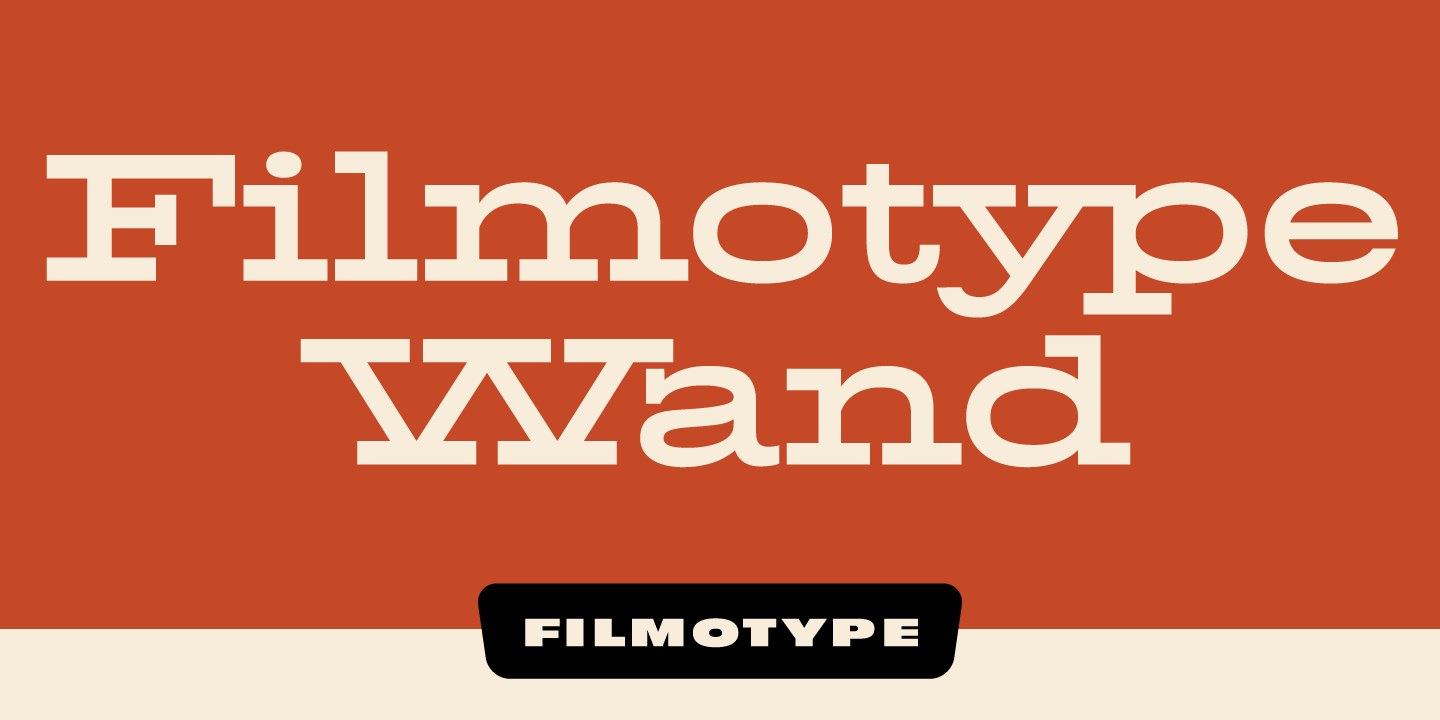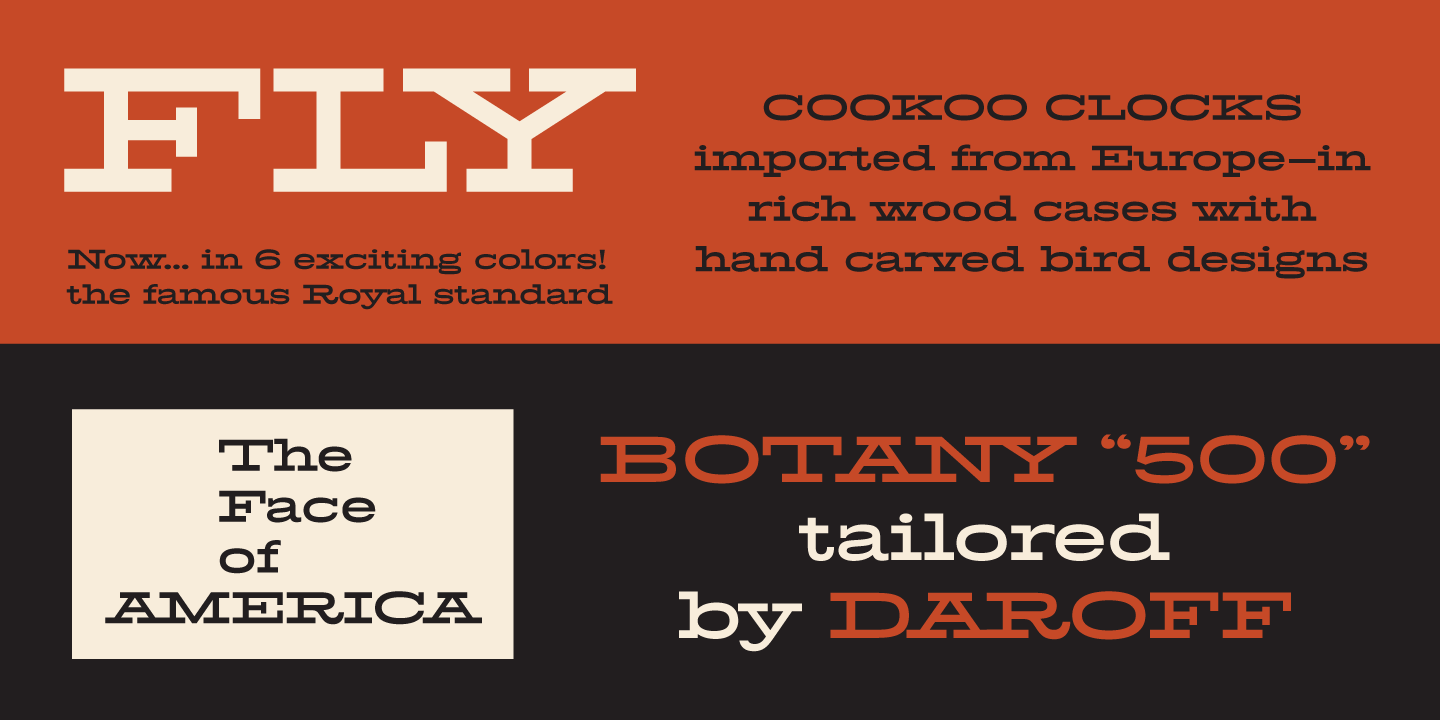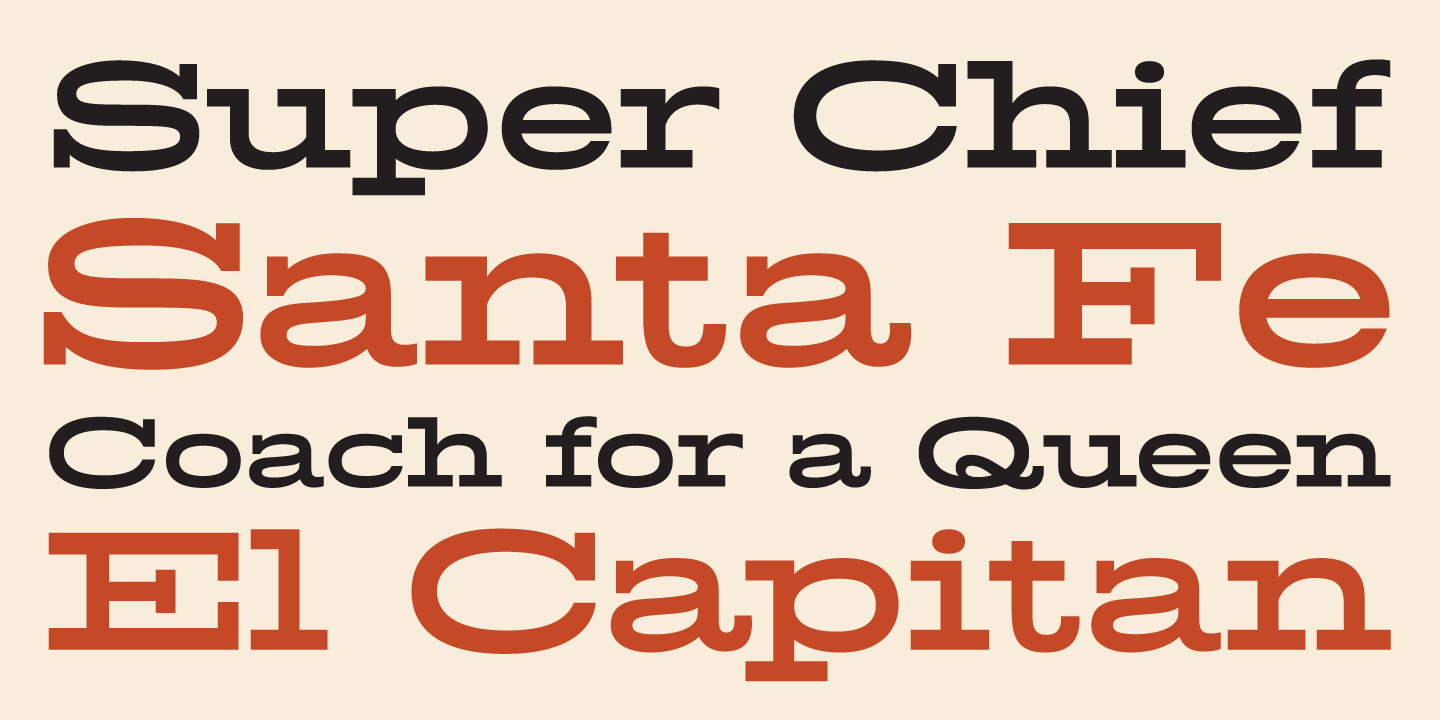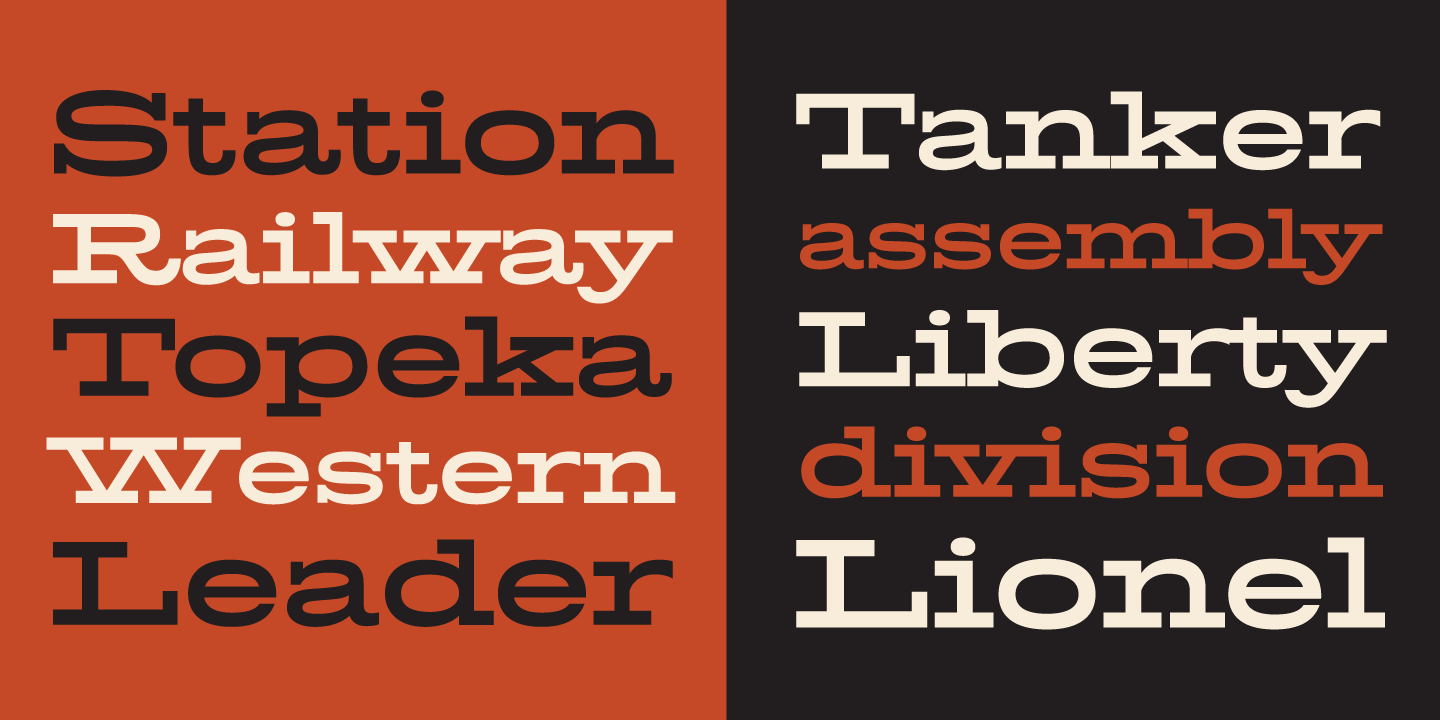
Filmotype Wand
Filmotype Wand was introduced in 1955 as part of the Flat Serif category. Inspired by smart slab serifs including Hellenic Wide popular in American television westerns and in heavy use in corporate letterhead and store packaging, Filmotype Wand takes a more modern approach with more rounded forms for higher readability.
Charles Gibbons spent months researching and developing period authentic Cyrillic and Greek letterforms while paying close attention to linguistic details to assure accurate forms for native language readers. Filmotype Wand supports over ninety languages including Russian and modern Greek and localized forms especially for setting Bulgarian, Serbian, Polish, Romanian and Turkish.
Filmotype Wand was developed and expanded from the original font filmstrips and includes language specific stylistic alternates, automatic fractionals, full European language supported ordinals, an expansive set of alternate contextual and case-sensitive forms as well as a complete complement of ligatures and full scientific inferiors and superiors in dynamic OpenType format.